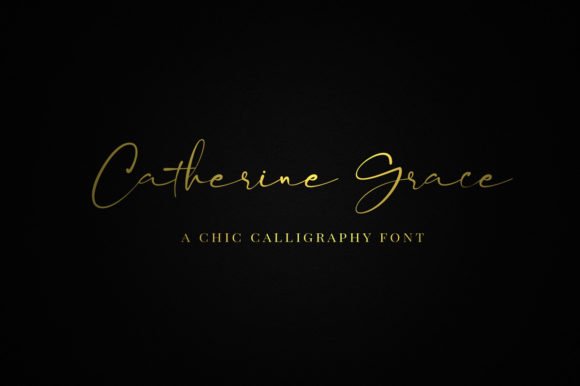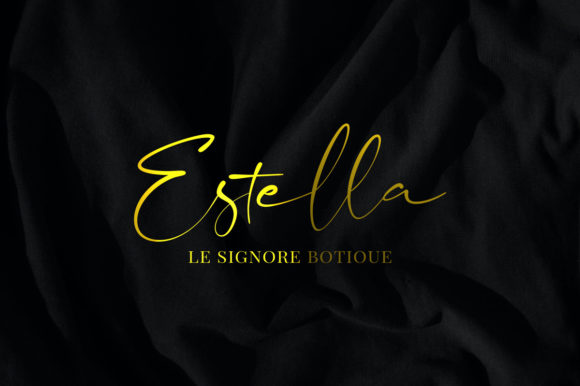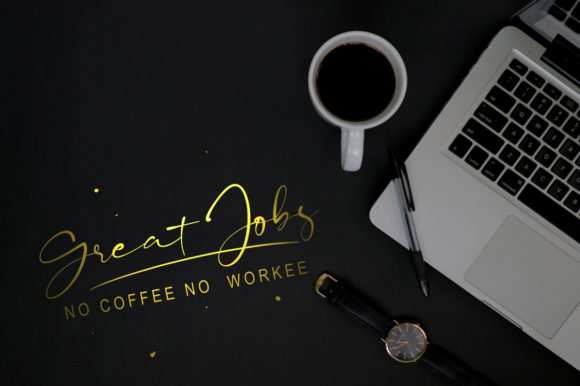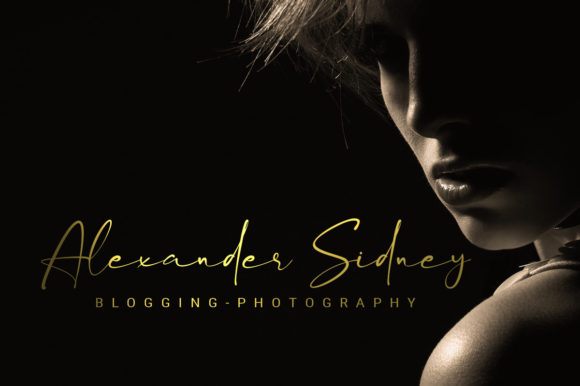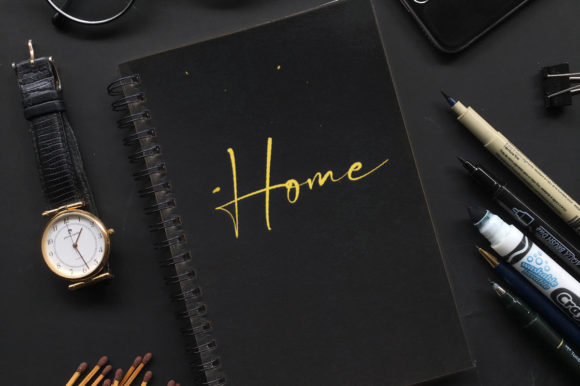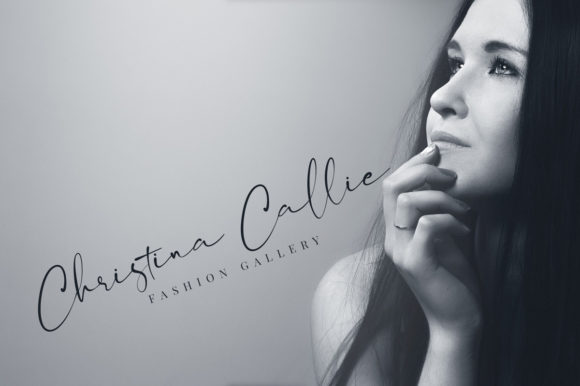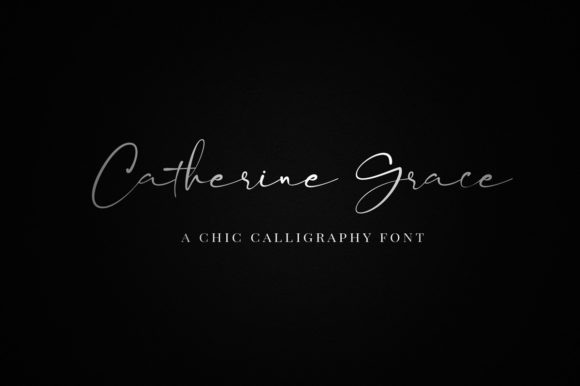
Discover the Timeless Elegance of Catherine Grace Font
Have you ever been working on a design project and suddenly, a spark of creativity hits you? You envision a beautiful, handwritten font that perfectly captures the essence of your message. That’s exactly what happens when you meet Catherine Grace Font – a lovely and timeless handwritten font that’s sure to elevate your designs to the next level.
Catherine Grace Font is a versatile tool for creating stunning logos, branding, and quotes. Its unique and beautiful touch brings every letter to life, making your designs truly unforgettable. With its PUA encoding, accessing all the glyphs and swashes is a breeze, giving you the freedom to experiment and express yourself.
Catherine Grace Font Key Features
- Unique Characteristics: This elegant script font features flowing connections, beautiful letterforms, and a vintage feel, making it ideal for wedding invitations, greeting cards, and other special occasion designs.
- Font Style: Catherine Grace Font comes in Regular and Italic styles, providing flexibility for designers to create a range of visual effects.
Catherine Grace Font Review
Overall, I was quite impressed with the Catherine Grace Font. Here are some of its notable features:
- ✨ Elegant and classic design, perfect for formal or vintage-inspired projects.
- ✨ Highly legible, with clear lines and well-defined letterforms.
- ✨ Offers a wide range of font weights and styles, from light to bold.
- ⚠️ May not be the best choice for modern or minimalist designs, as it has a more traditional feel.
- ⚠️ Some users may find the font to be a bit too ornate or over-the-top, depending on the context.
Overall, I would say that the Catherine Grace Font is a solid choice for designers looking for a classic, elegant font. While it may not be the best fit for every project, it’s definitely worth considering for formal or vintage-inspired designs.
Tips for Getting the Most Out of Catherine Grace Font
Use Catherine Grace font for titles and headings to add a touch of elegance and sophistication to your designs. Pair it with a bold font for a striking contrast. Experiment with different font sizes and styles to create a unique visual hierarchy.
Catherine Grace font is ideal for:
- Special occasion cards and gifts
Compared to Catherine Grace Font, Playfair Display has a more formal and classic feel, with intricate details and ornate flourishes. While Catherine Grace Font is more versatile and can be used in a variety of settings, Playfair Display is better suited for high-end and formal designs.
Compared to Catherine Grace Font, Great Vibes has a more flowing and cursive feel, with a softer and more feminine touch. While Catherine Grace Font is more versatile and can be used in a variety of settings, Great Vibes is better suited for designs that require a touch of elegance and sophistication.
Pacifico is a beautiful, elegant script font that adds a touch of warmth and sophistication to any design. It’s perfect for use in headings, titles, and other prominent text elements. When to use: Travel, hospitality, and lifestyle brands, as well as event designs and wedding invitations.
Q: Does Catherine Grace support languages other than English?